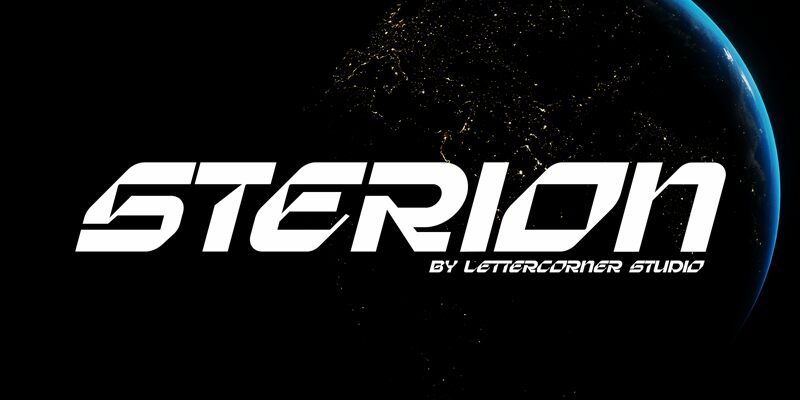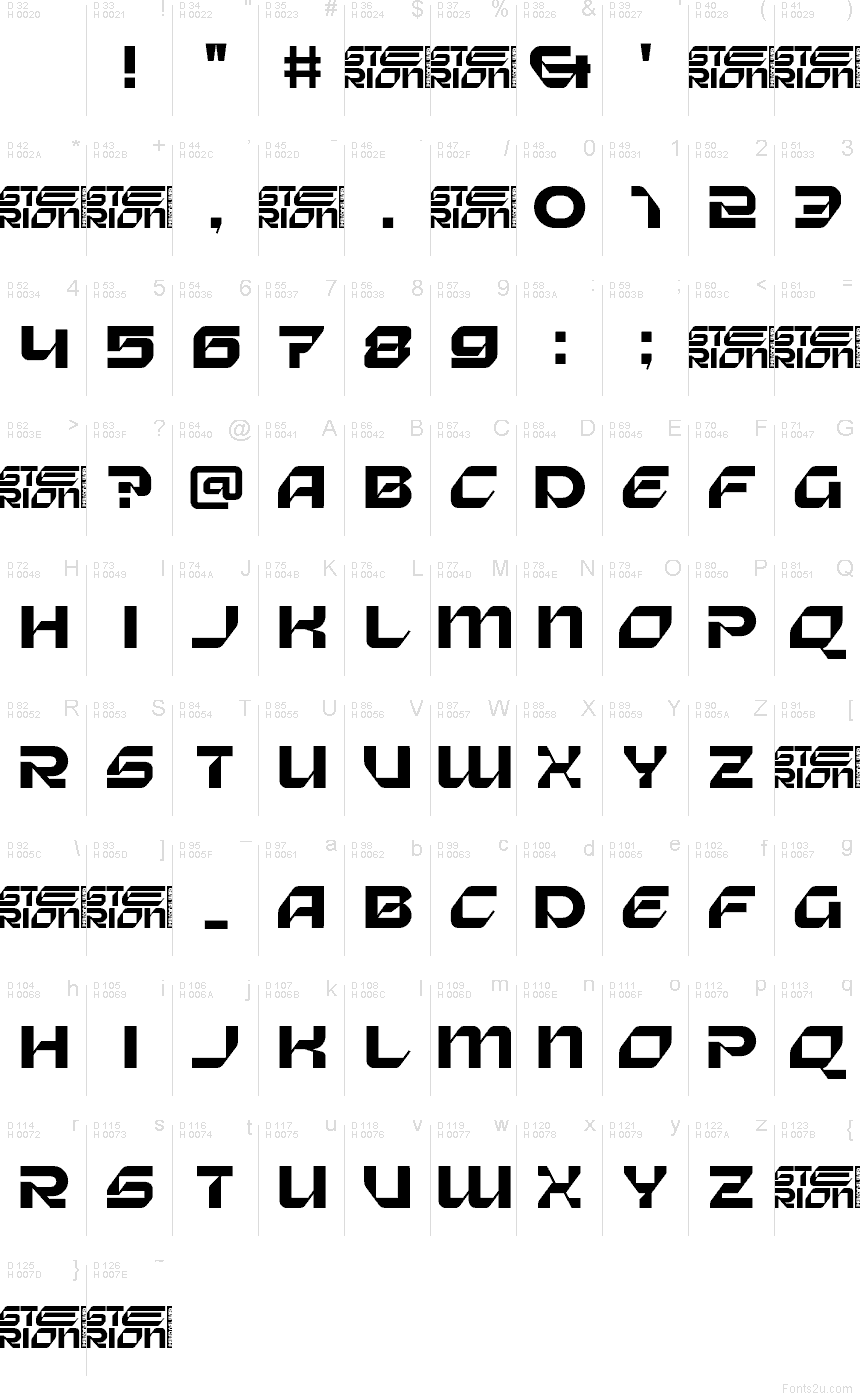
Sterion font by Mocha Frappuccino is a free futuristic display typeface with the punchy attitude of a game title and the sleek polish of a tech logo. Its sharp diagonal cuts, squared curves, and tight, blocky rhythm feel like they’re carved from brushed metal, giving every word a strong, engineered presence. Letters lock together in a compact grid, so headlines feel solid and unified, even at huge sizes.
Using Sterion, you can push sci-fi posters, gaming covers, esports branding, streaming overlays, tech event graphics, and app splash screens into bold, cinematic territory. This free font thrives on short, high-impact phrases and logo wordmarks; pair it with a clean, light sans serif for body copy and you’ll get a crisp, futuristic system that stays readable while still looking cutting-edge.
Sterion